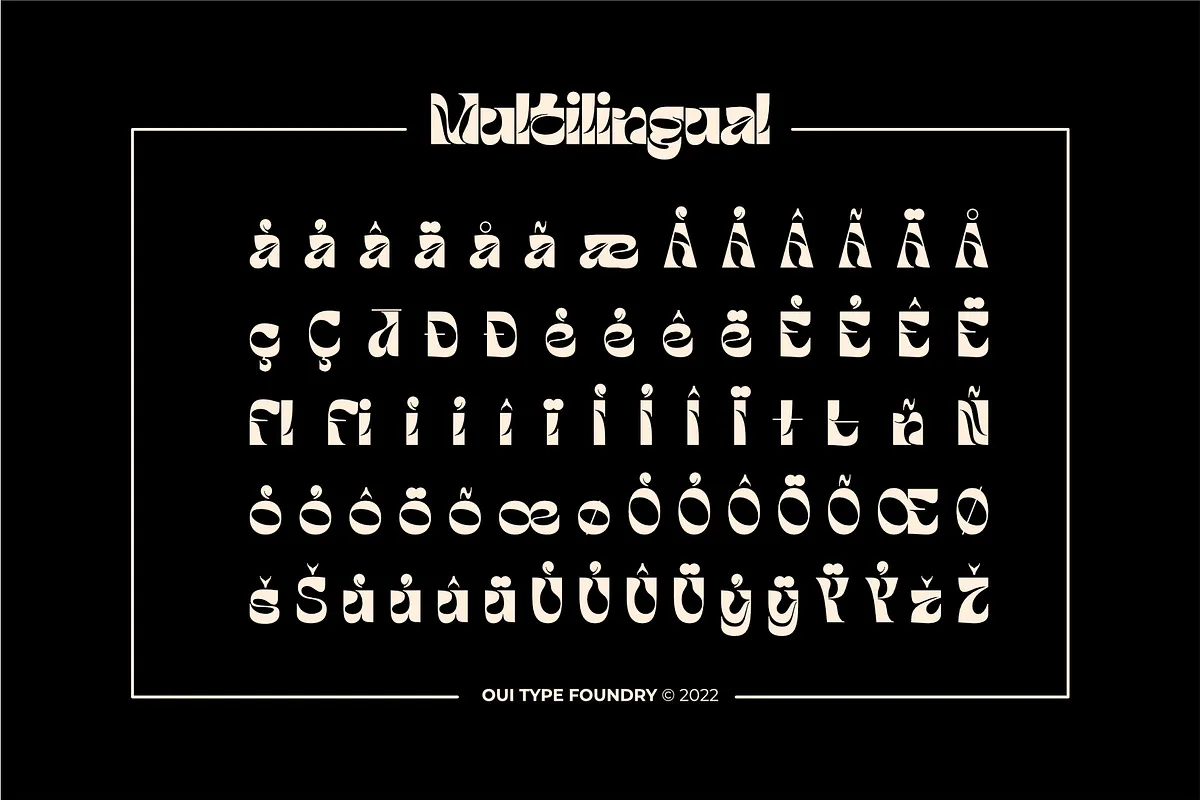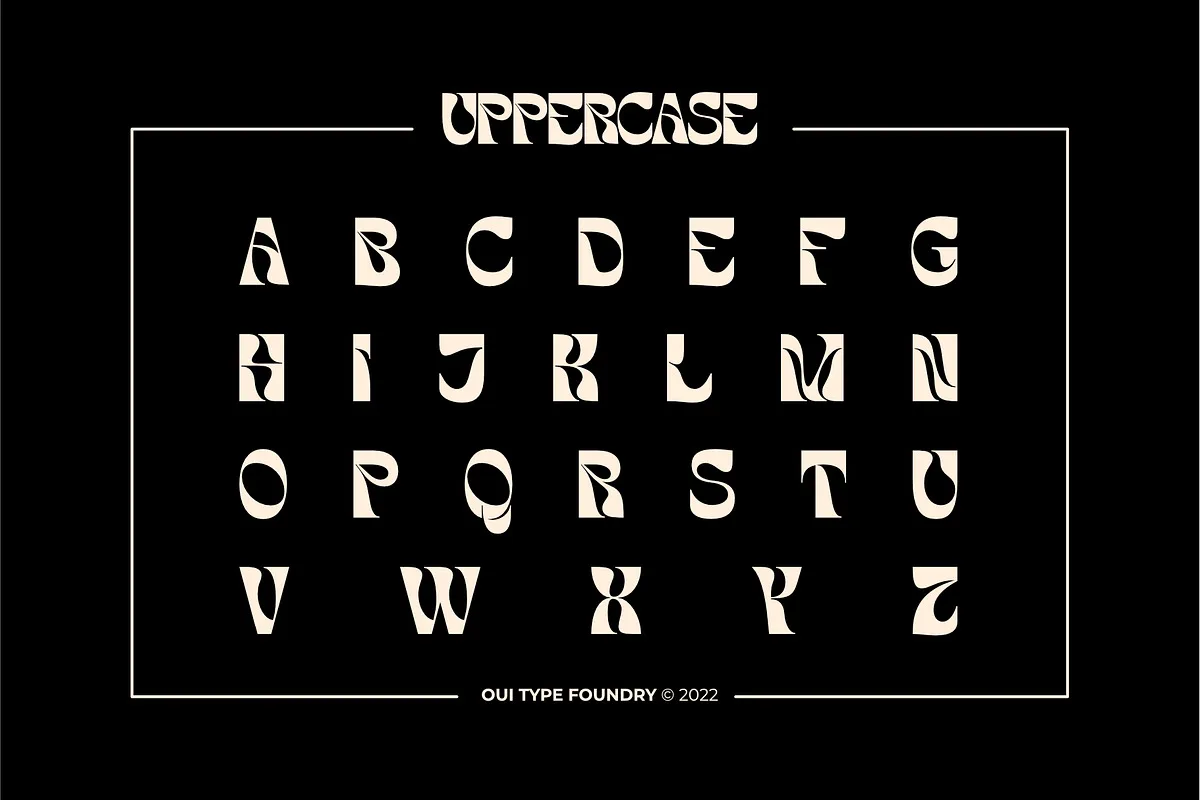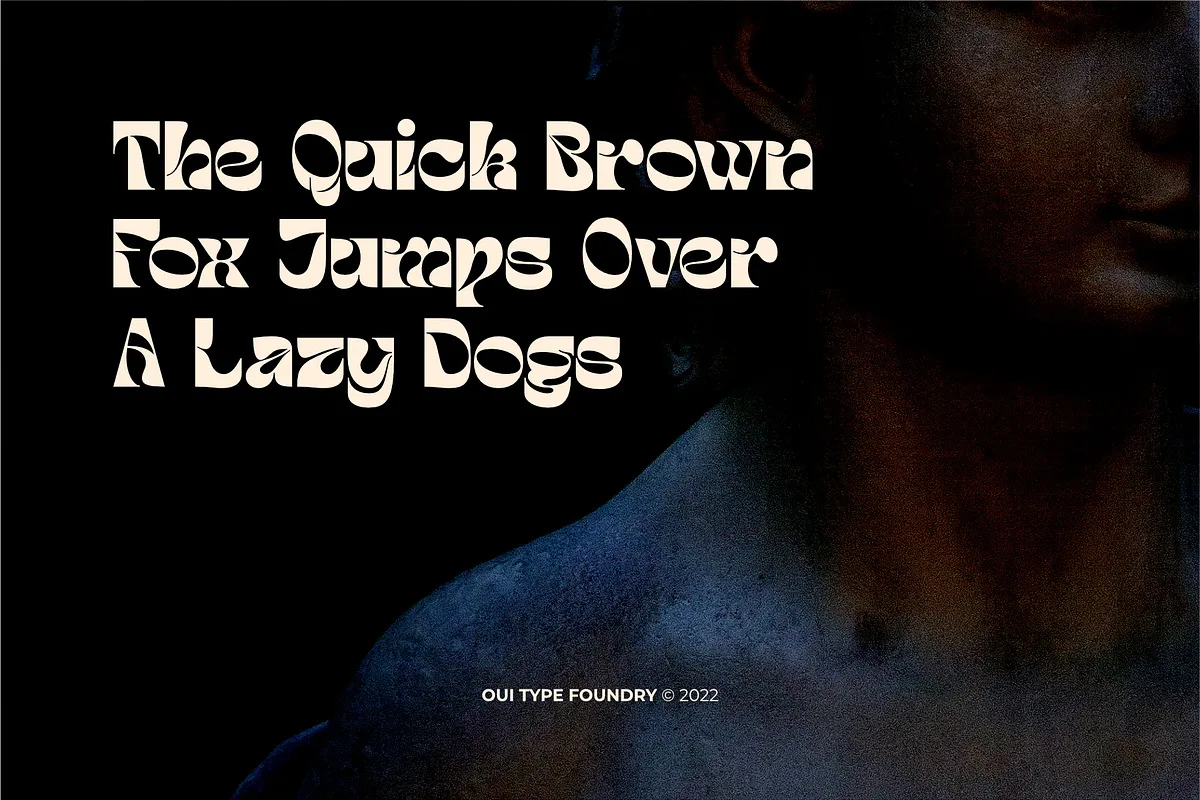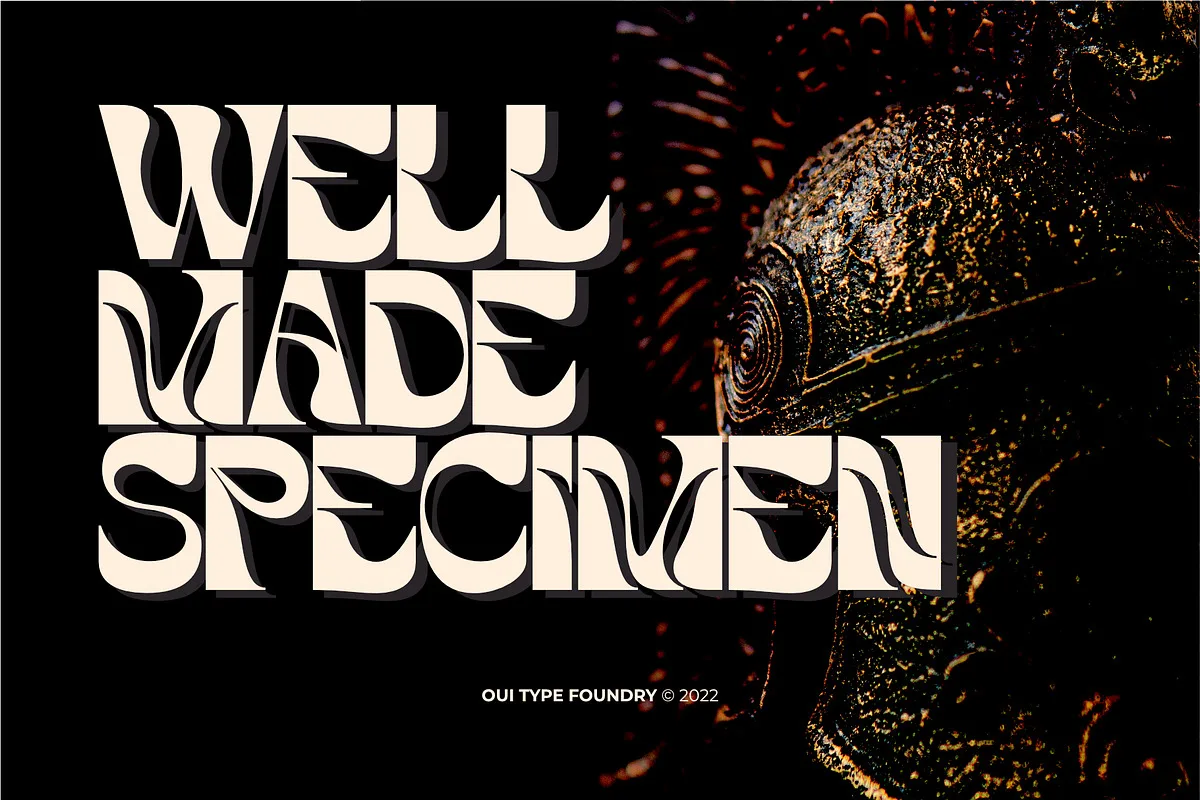
Tobias is a dynamic display font with art nouveau feel. Tobias is very inspired by the art nouveau style with a slightly modern touch. It’s perfect for branding, logo, packaging, header, title, t-shirt design, etc. Tobias is great if you pair it with an illustration, it will make the design even more dope.